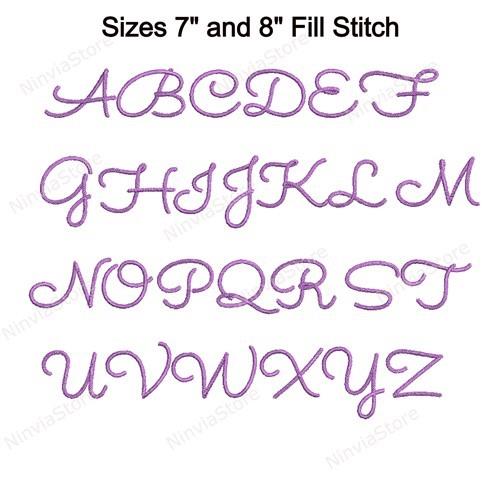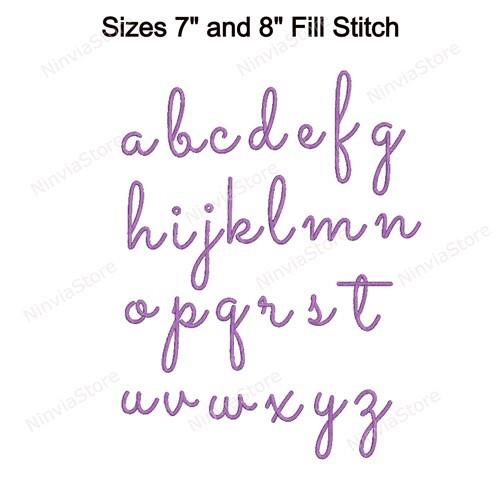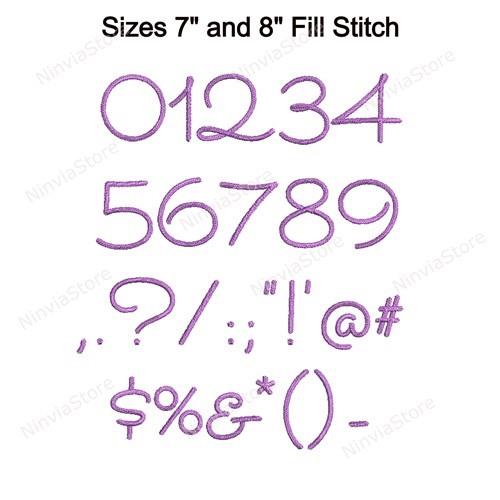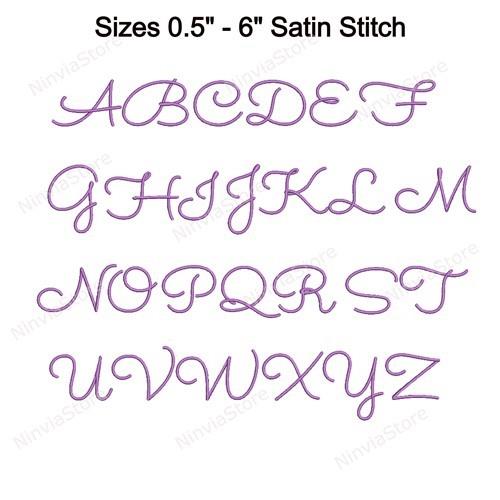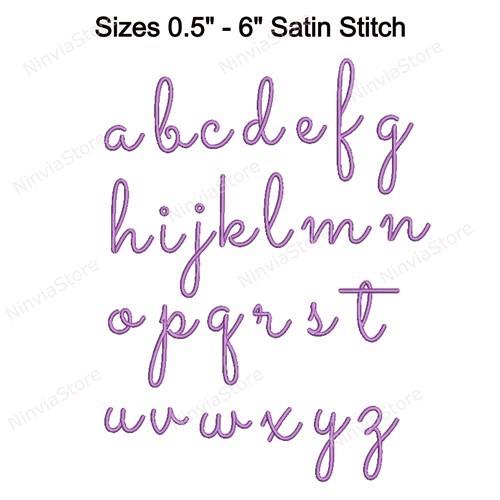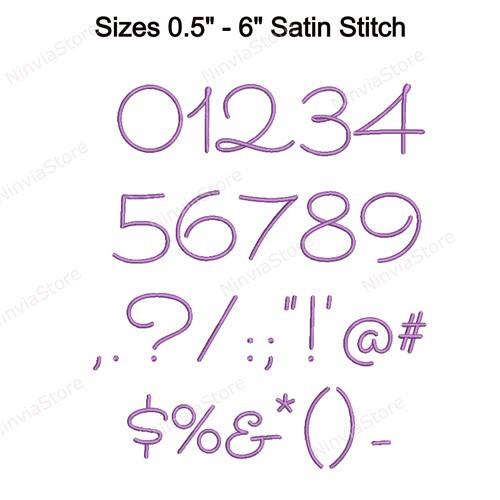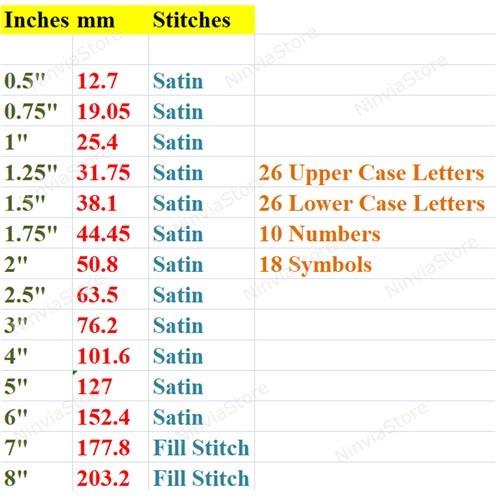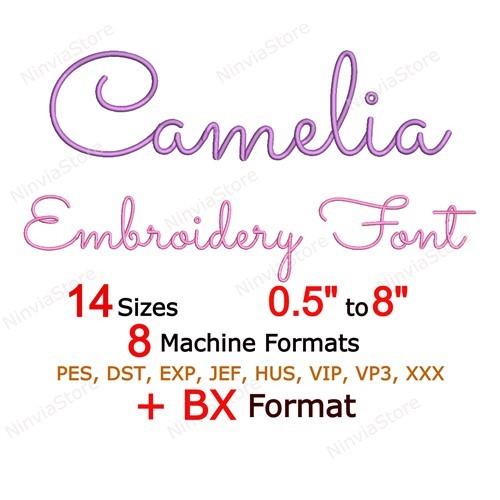
Maya Kreations is happy to present Camelia Font machine embroidery font which has This script machine embroidery font boasts flowing, handwritten style letters, perfect for custom pillow cases and decorative home accents. Available in PES, DST, and six other formats. included. If you would like to view more embroidery fonts and alphabets please search our embroidery fonts page.